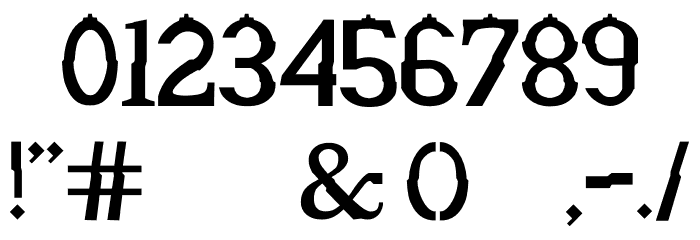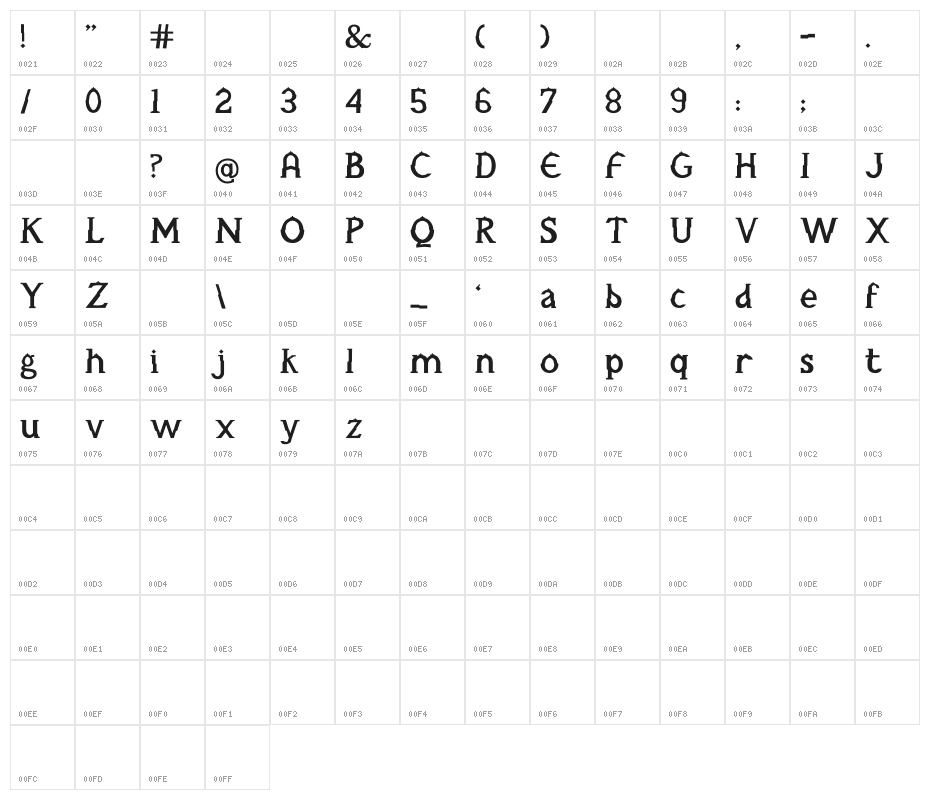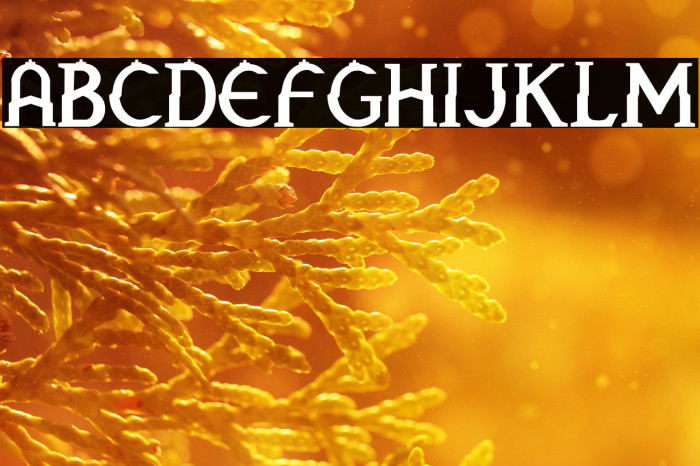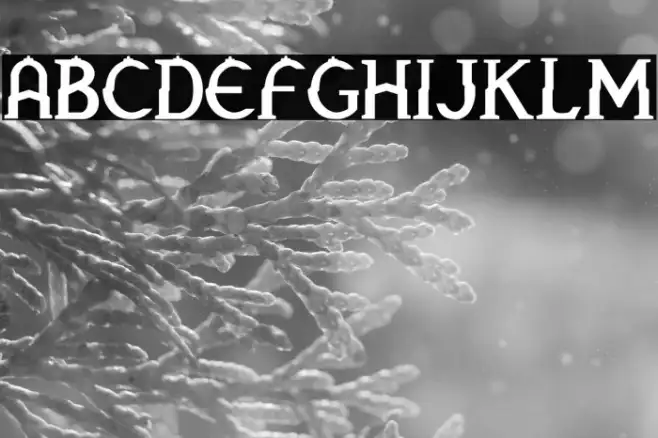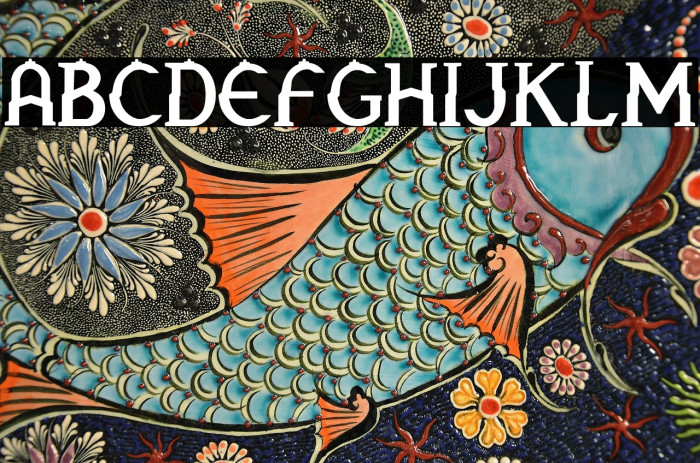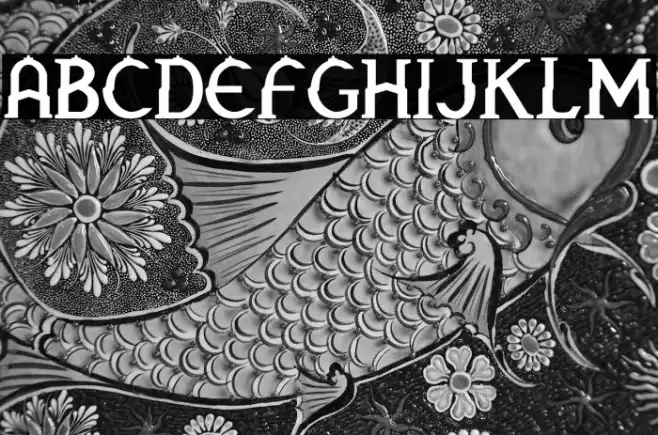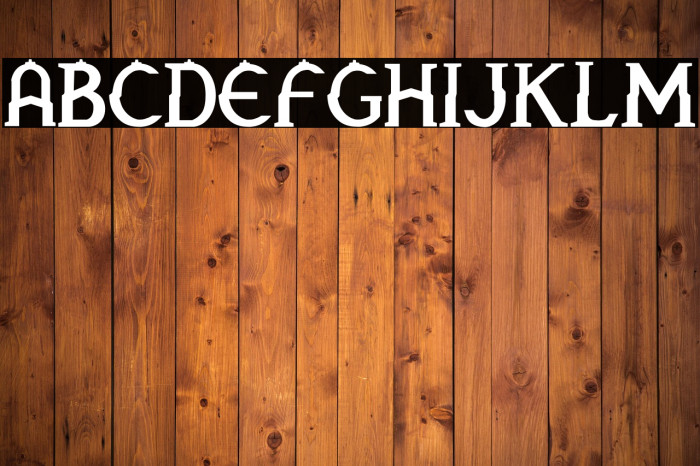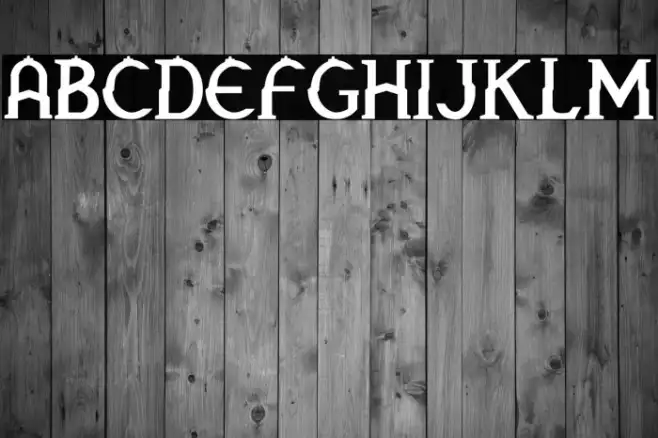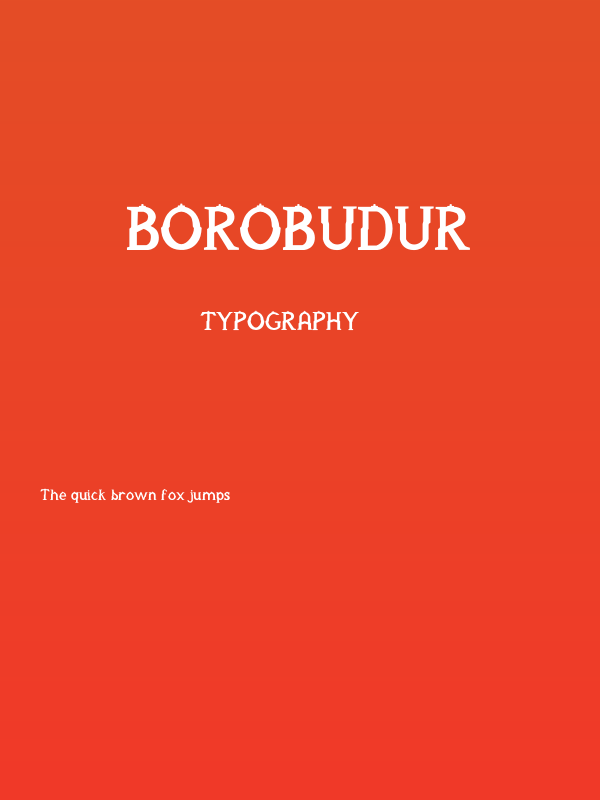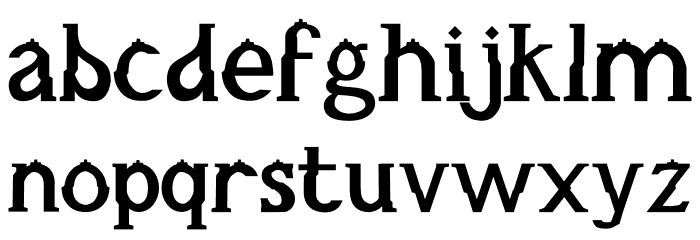
Borobudur Font
Borobudur Description
This font features a unique blend of traditional and modern elements, characterized by its distinct, angular serifs and slightly condensed letterforms. The uppercase letters exhibit a strong presence with their bold strokes and sharp edges, while the lowercase letters maintain a consistent style with a touch of elegance. The numerals are clear and legible, matching the overall aesthetic of the typeface. Special characters are designed with the same attention to detail, ensuring uniformity across all glyphs. The font's design is reminiscent of historical scripts, yet it maintains a contemporary feel, making it versatile for various design applications.